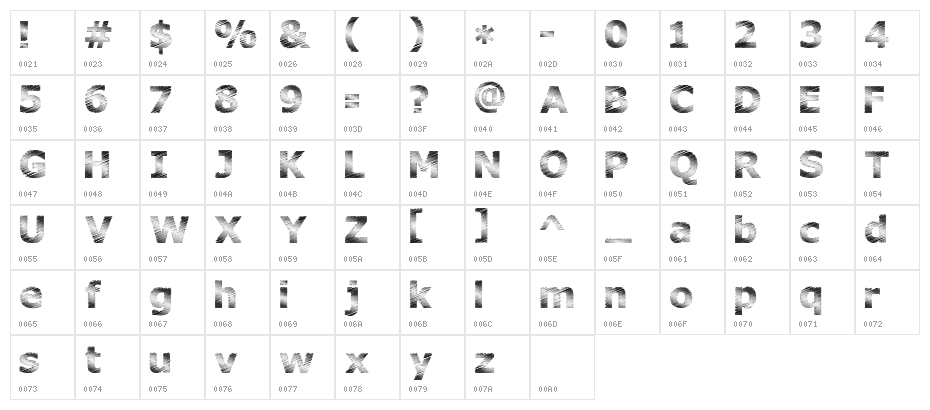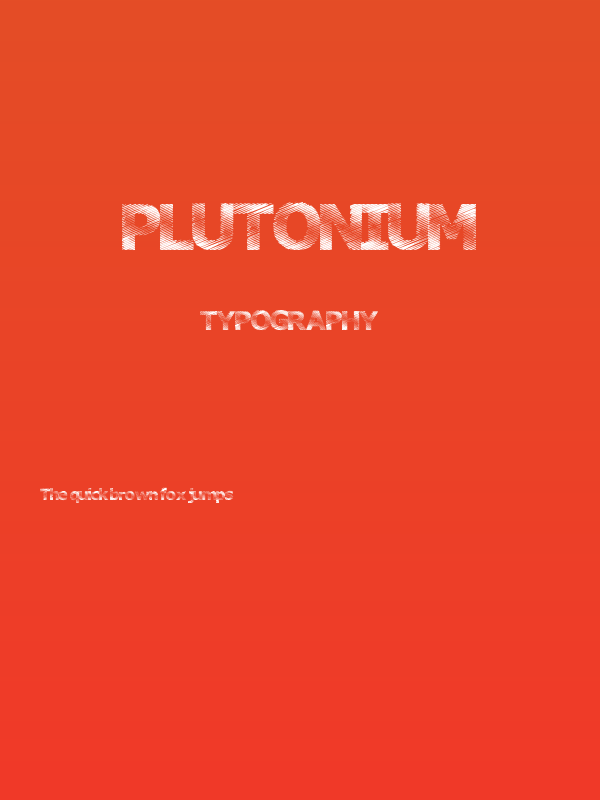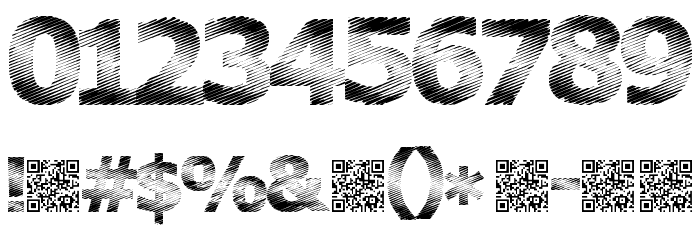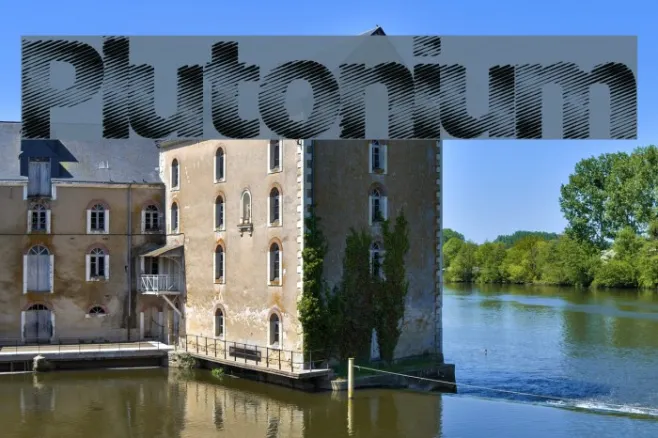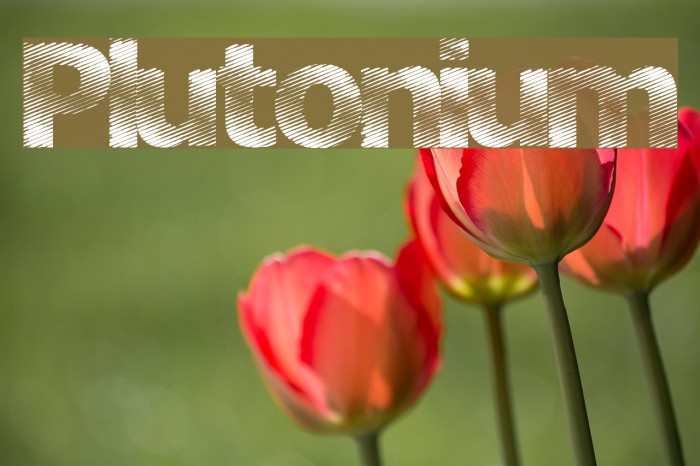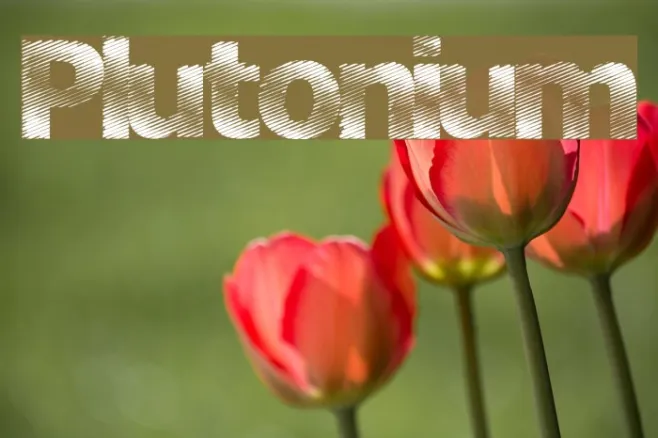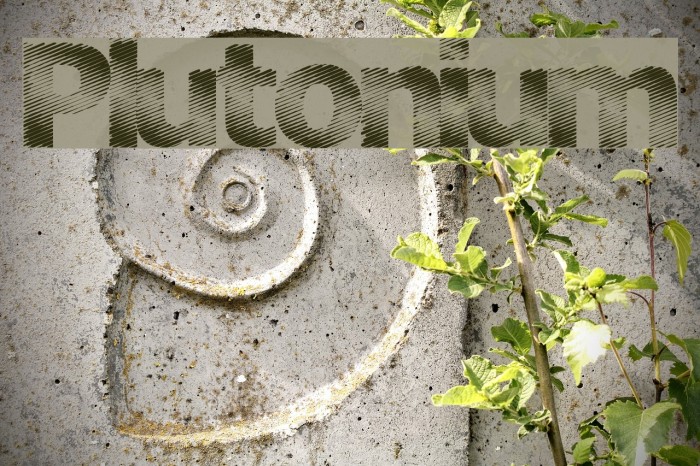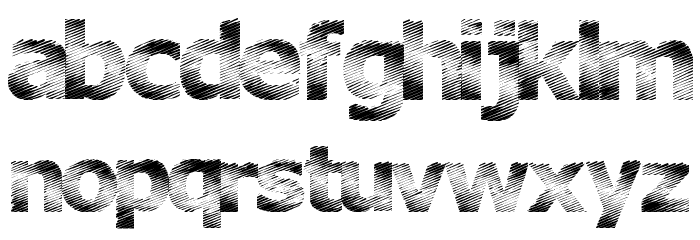
Plutonium Font
Plutonium Description
This font features a bold and dynamic design with a unique textured appearance. Each character is filled with diagonal lines, creating a sense of movement and energy. The uppercase and lowercase letters maintain a consistent style, with rounded edges and a strong presence. Numbers and special characters follow the same design principles, ensuring uniformity across all elements. The font's distinctive look makes it suitable for eye-catching designs and creative projects.
| Proposed Projects | Ideal for posters, album covers, branding, and any project requiring a striking visual impact. |